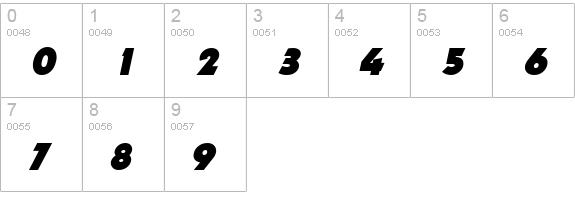
Nougat Italic is a distinctive, italic variant in the Nougat typeface family \xE2\x80\x94 well suited to design and typography projects.
Nougat Italic font is a sleek and stylish typeface that exudes elegance and sophistication. Its gracefully slanted italic design adds a touch of flair to any project, making it perfect for both professional and creative uses. The soft curves and smooth lines of Nougat Italic create a sense of modernity and refinement, making it a versatile choice for a wide range of design applications. Best of all, Nougat Italic font is completely free to download at FontsMarket.com. This means that you can easily access this exquisite typeface without any cost, allowing you to elevate your designs without breaking the bank. Whether you're working on a branding project, a website design, or any other creative endeavor, Nougat Italic font is sure to make a lasting impression. Don't miss out on this opportunity to enhance your work with this beautiful and freely available font.